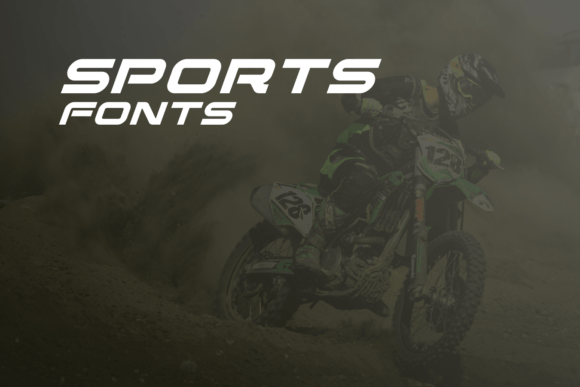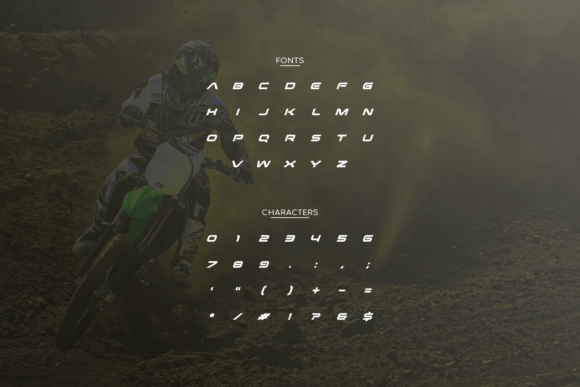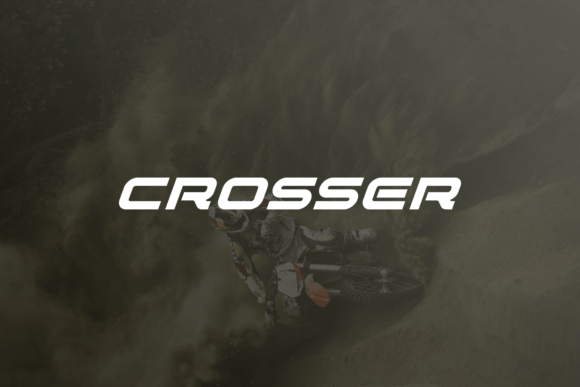
Introduction to Rukino Font Font
Fonts play a crucial role in design, and the Rukino Font font is a typeface that brings both character and versatility to any project. Whether you’re working on a branding project, a website, or a print design, the Rukino Font font offers a unique style that can elevate your work.
Rukino is a modern, sports-themed sans serif font.
This font would be ideal for web design, business cards, or just about anything else that requires a unique touch .
Key Features of Rukino Font Font
Why Choose Rukino Font Font?
The Rukino Font font is more than just a typeface – it’s a design tool that helps you communicate your message with style and clarity. Its unique character set and versatile design make it suitable for a wide range of applications, from elegant invitations to bold headlines.
With its carefully crafted letterforms and balanced proportions, the Rukino Font font ensures readability and visual appeal across all mediums.
What makes Rukino Font font special?
The Rukino Font font stands out with its unique design, exceptional readability, and versatility across various design applications.